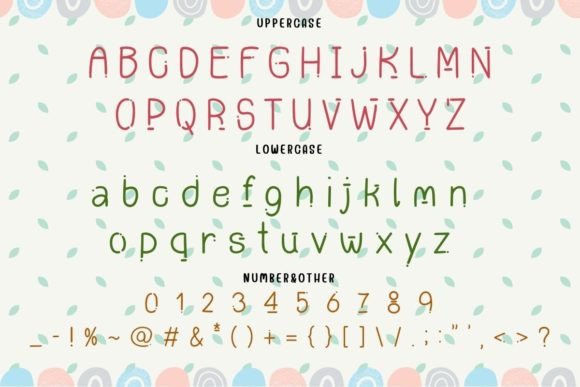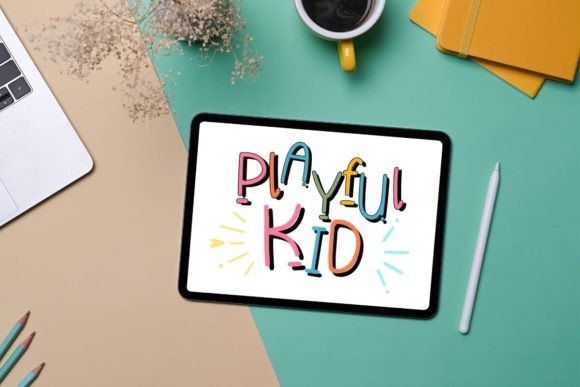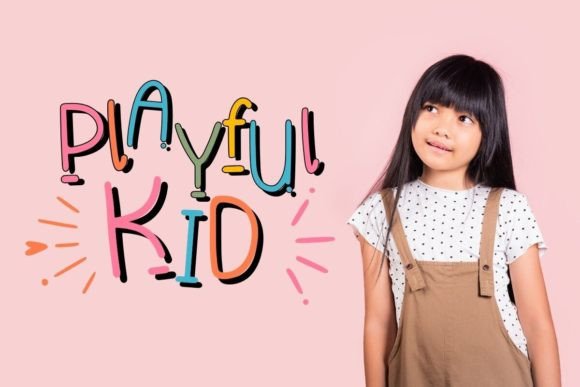
Introduction to Playful Kid Font
Who hasn’t been stuck on a creative project, desperately searching for the perfect design element to bring their vision to life? I know I have, and that’s exactly how I found myself in love with the Playful Kid Font. Its charming display font with a groovy and fun vibe immediately caught my attention, and I knew I had to share it with fellow designers.
As a go-to design resource, the Playful Kid Font is a high-quality addition to any creative project. With its transparent background, it’s incredibly versatile and can be used in a variety of settings, from angel-themed designs to kids’ designs, birthday invitations, and more.
Key Features of Playful Kid Font
- High-quality, vector-based design that allows for easy scaling and editing.
- Features a transparent background, allowing for easy layering and customization in your design project.
- Designed with a playful, kid-friendly aesthetic, making it ideal for children’s books, educational materials, and family-themed projects.
- Includes a range of glyphs and characters, including Latin and Cyrillic scripts, to support multilingual creative projects.
Honest Review: Playful Kid Font
- ✨ High quality design: The font is well-designed and looks great on both light and dark backgrounds.
- ✨ Versatile: It’s suitable for a wide range of creative projects, from children’s books to advertisements.
- ⚠️ Limited font styles: The font only comes in a few styles, which might limit its versatility for some designers.
- ⚠️ No transparent background option: The font doesn’t have a transparent background, which might make it less suitable for certain design applications.
Overall, I’m impressed with the Playful Kid Font. While it’s not perfect, it’s a great addition to any designer’s toolkit. If you’re looking for a fun and energetic font for your next creative project, I’d definitely recommend giving it a try.
Tips for Getting the Most Out of Playful Kid Font
To maximize the impact of the Playful Kid Font, use it in combination with other design elements, such as bright colors and playful graphics, to create a cohesive and engaging design. Experiment with different font sizes and styles to add visual interest.
The Playful Kid Font is ideal for a variety of creative projects, including children’s books, party invitations, and social media graphics. Its high-quality and playful feel makes it perfect for designs that require a fun and engaging tone.